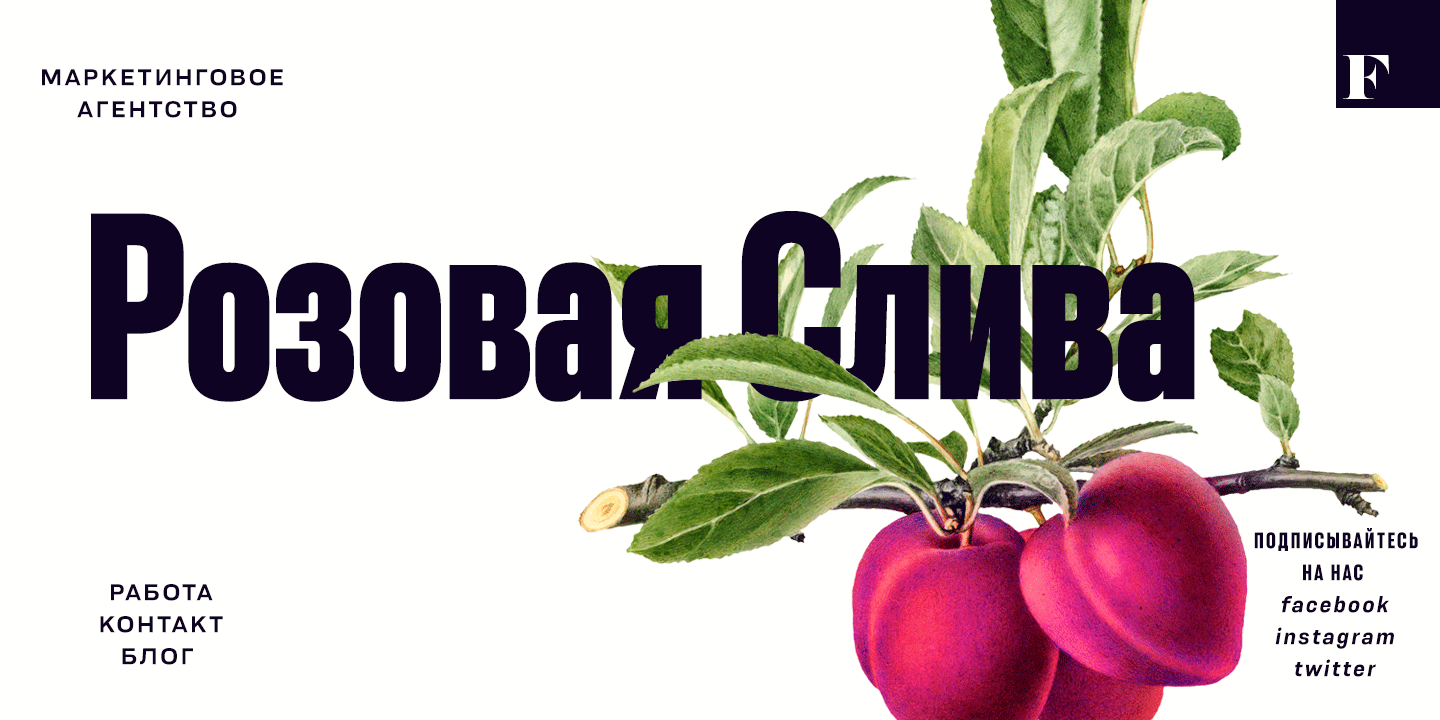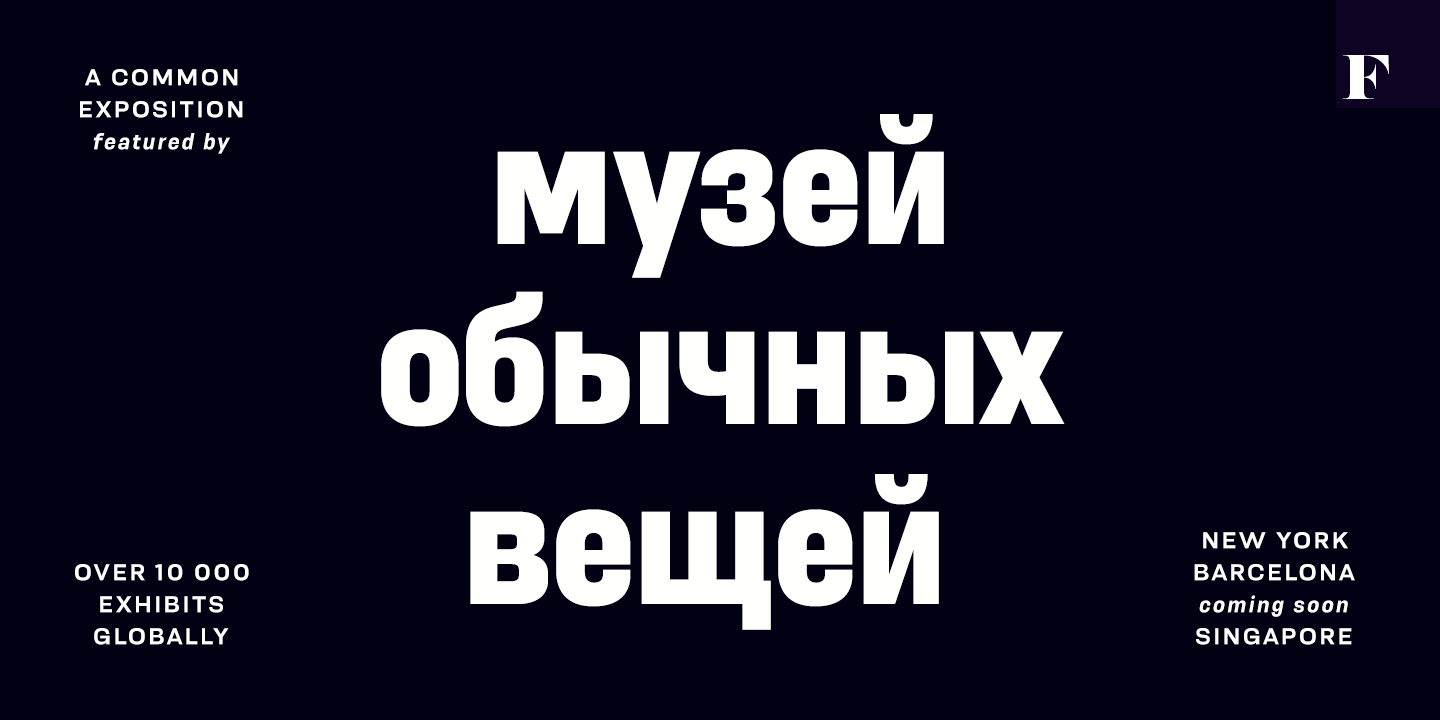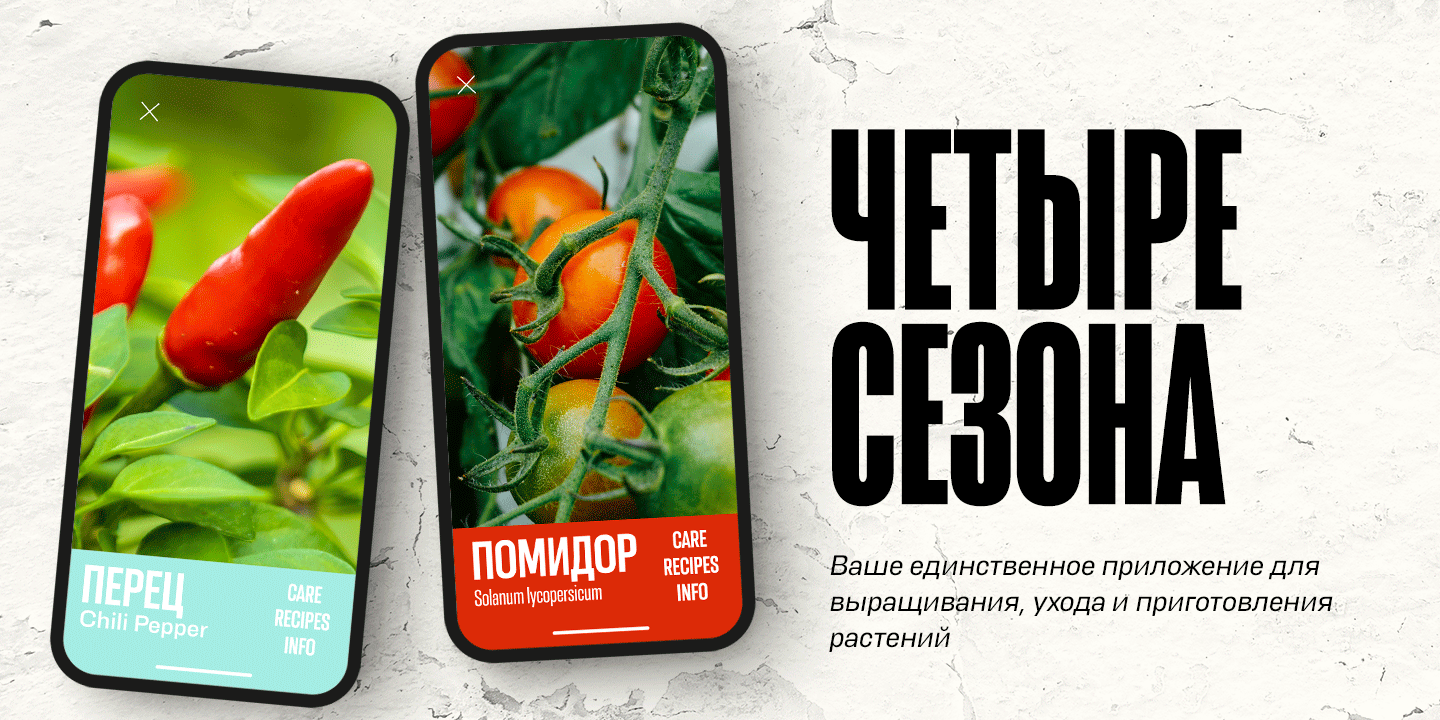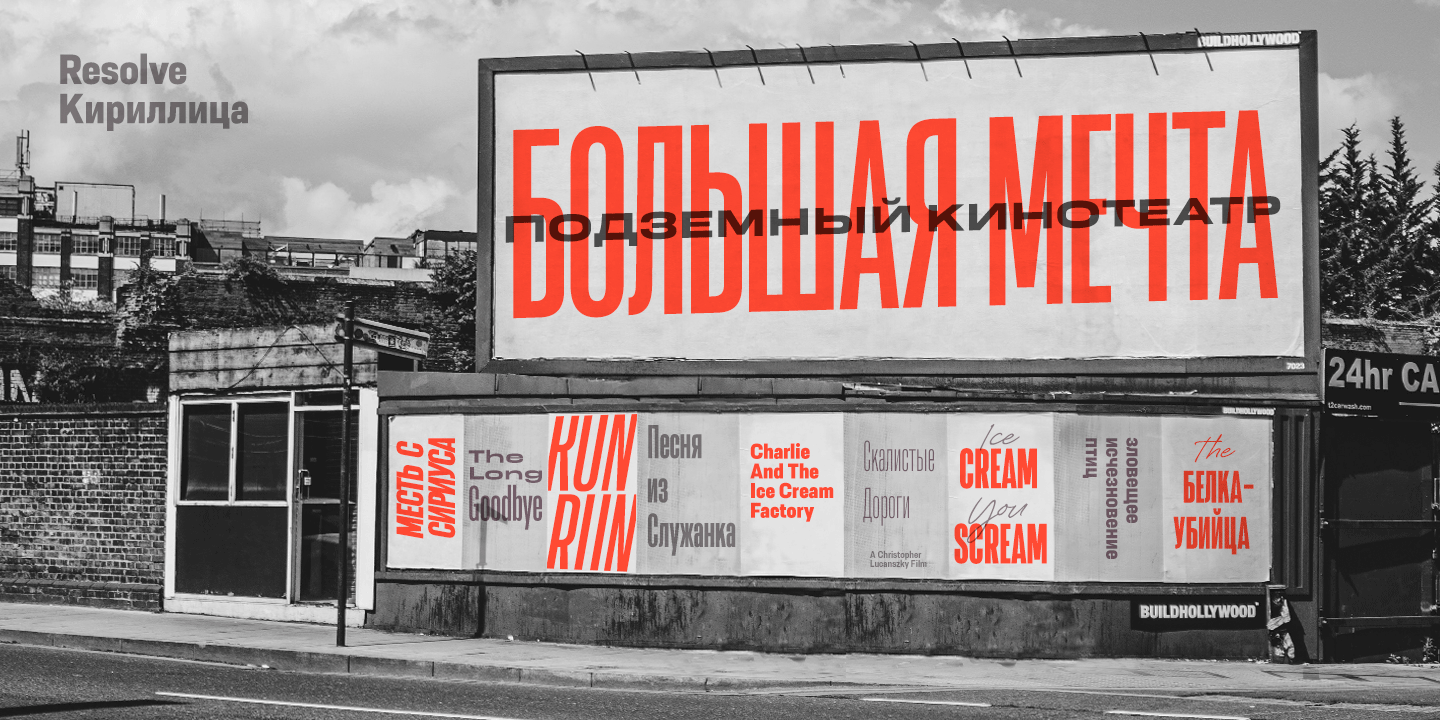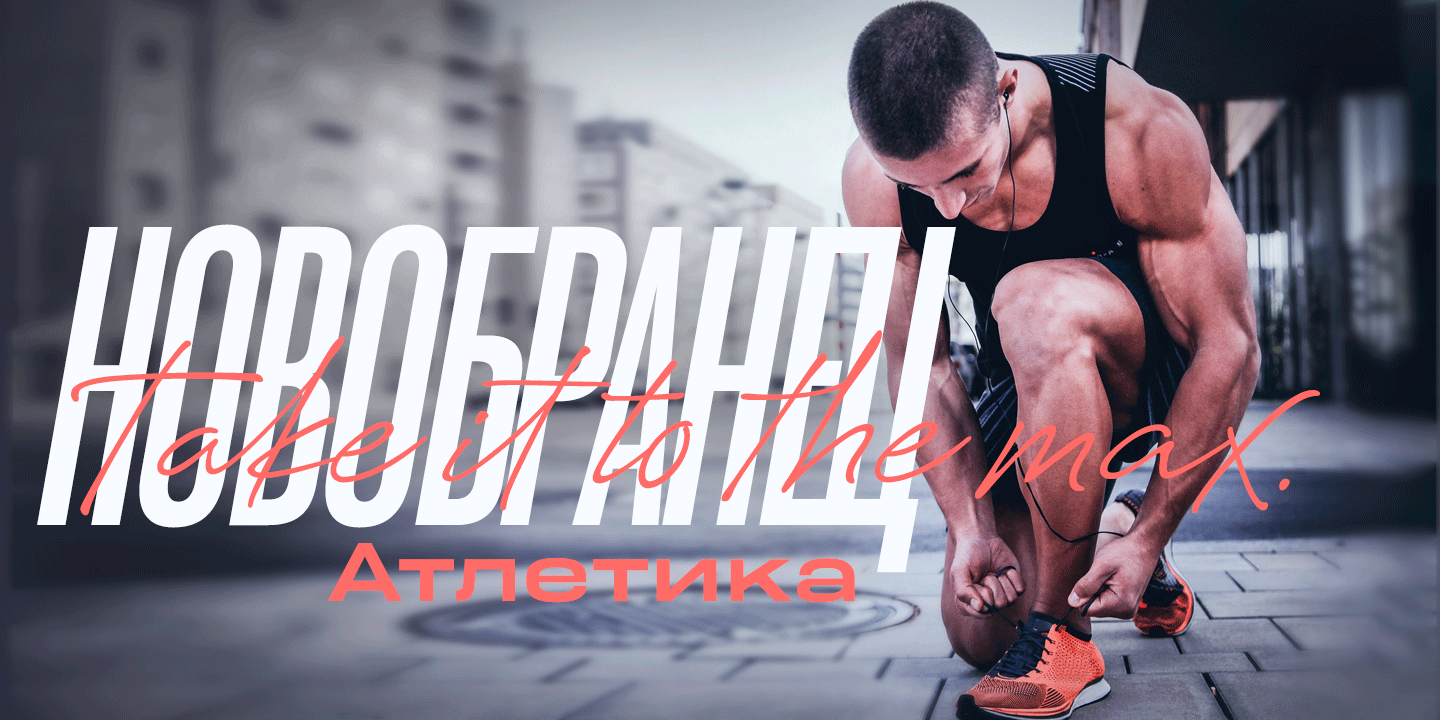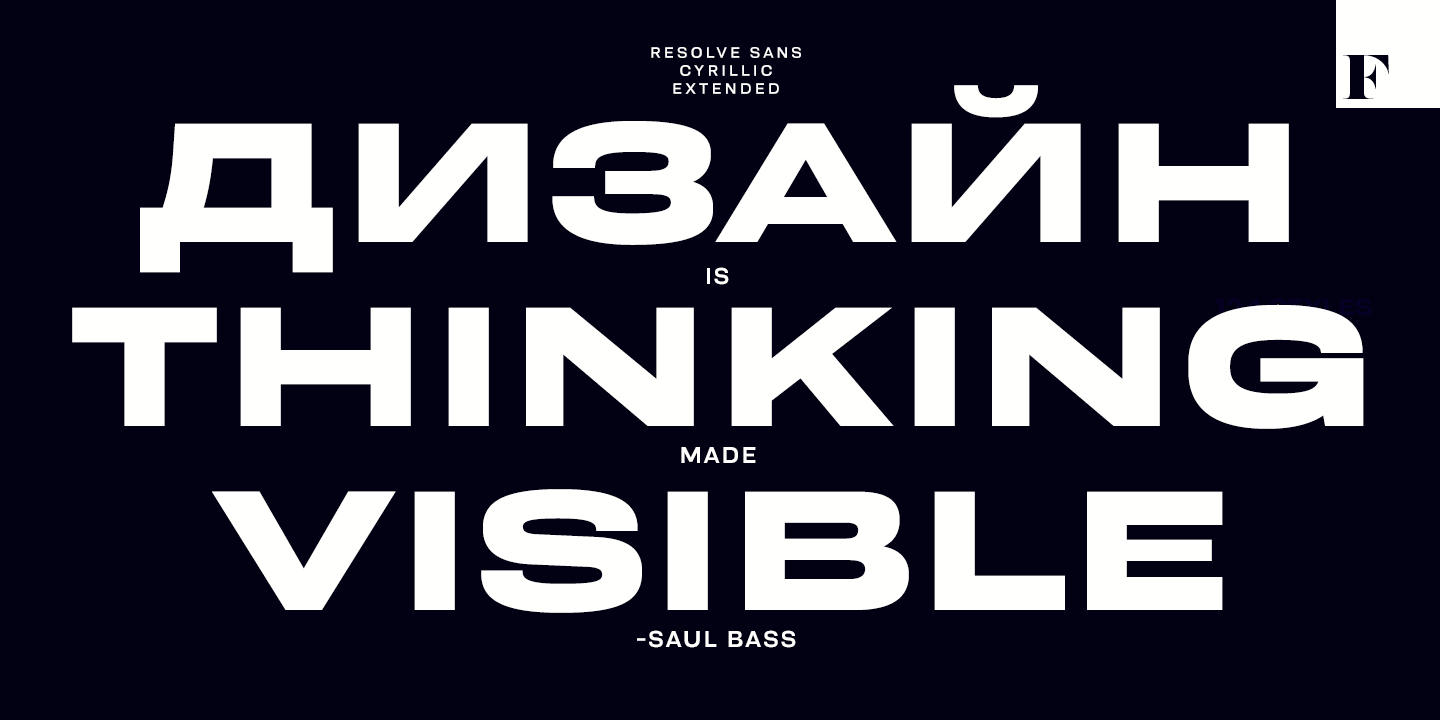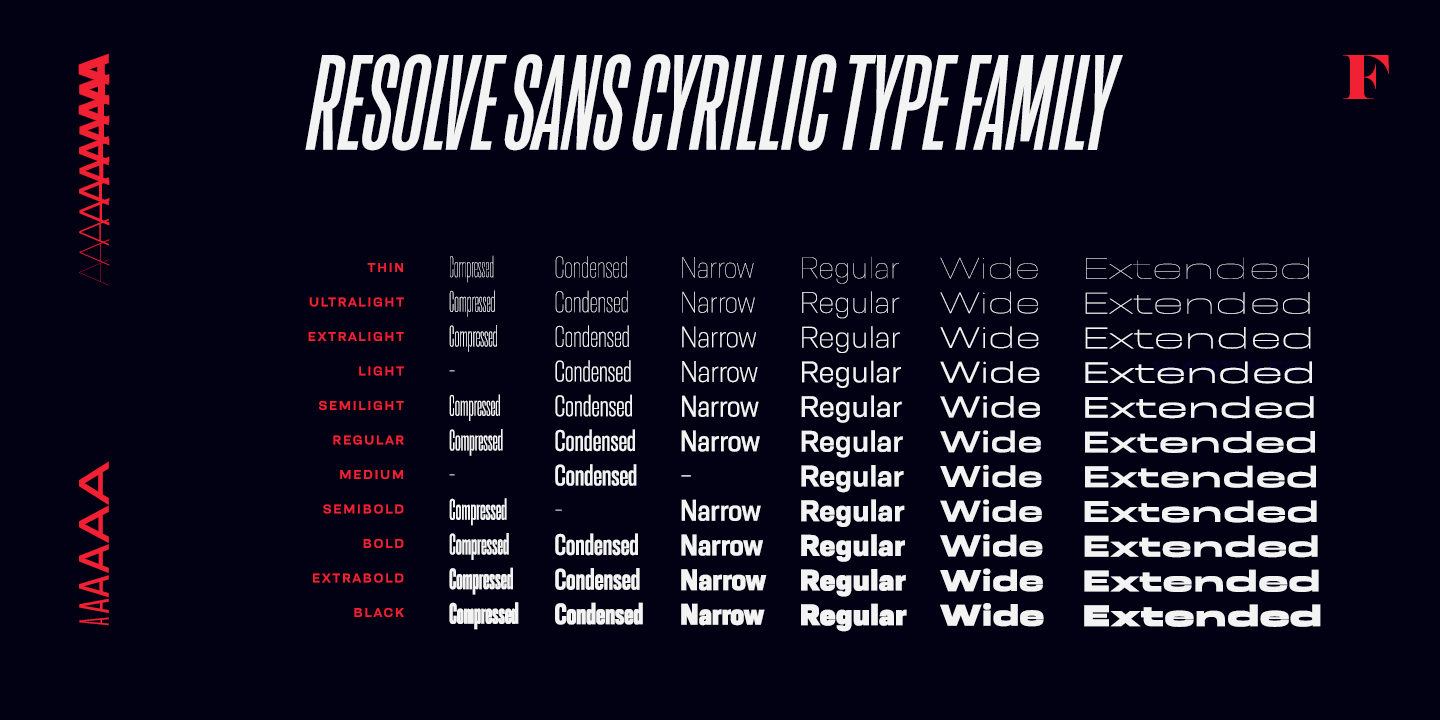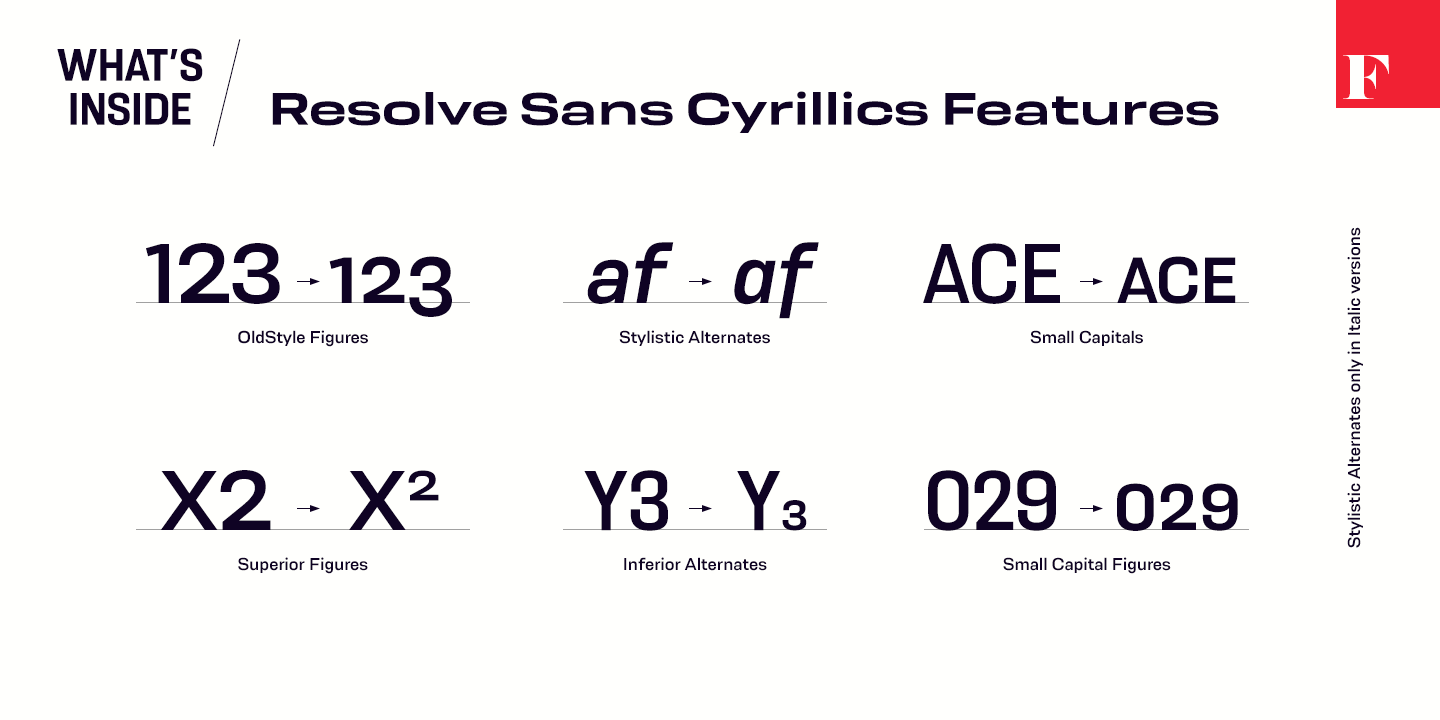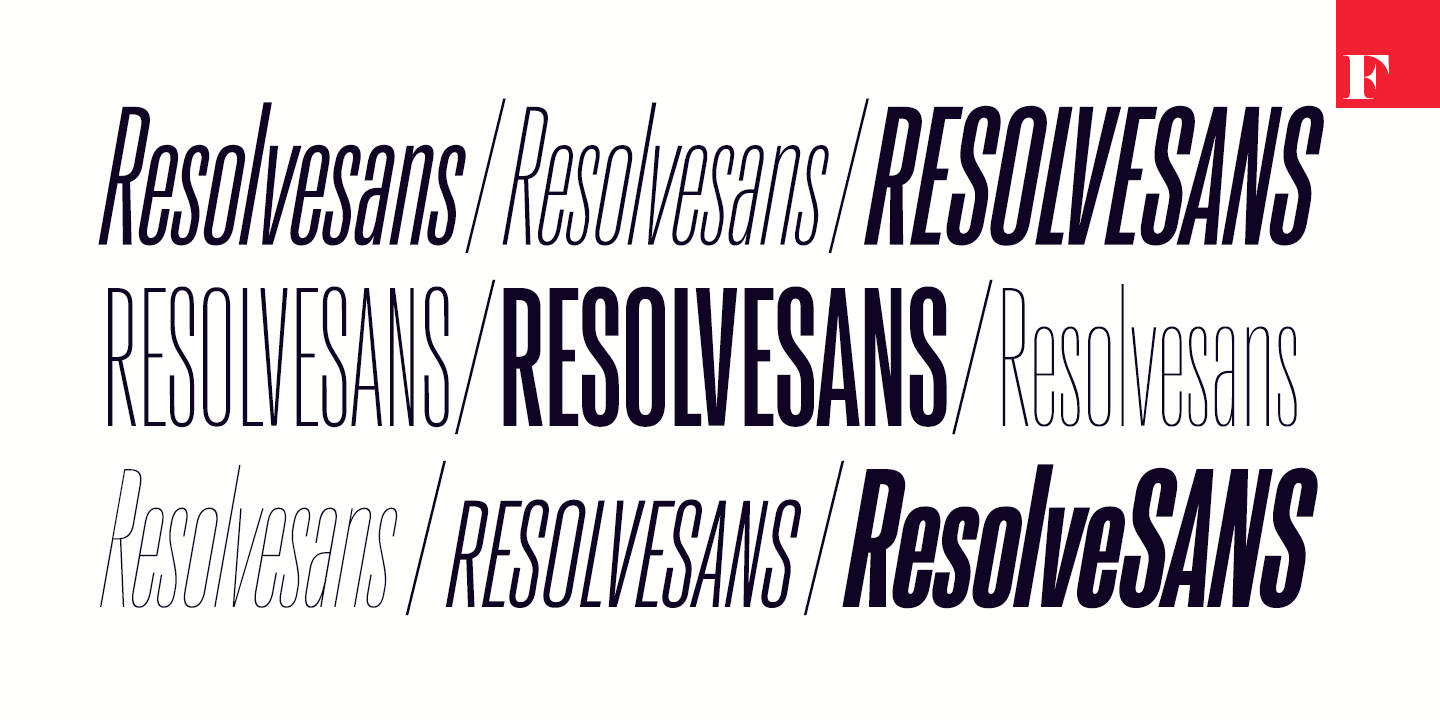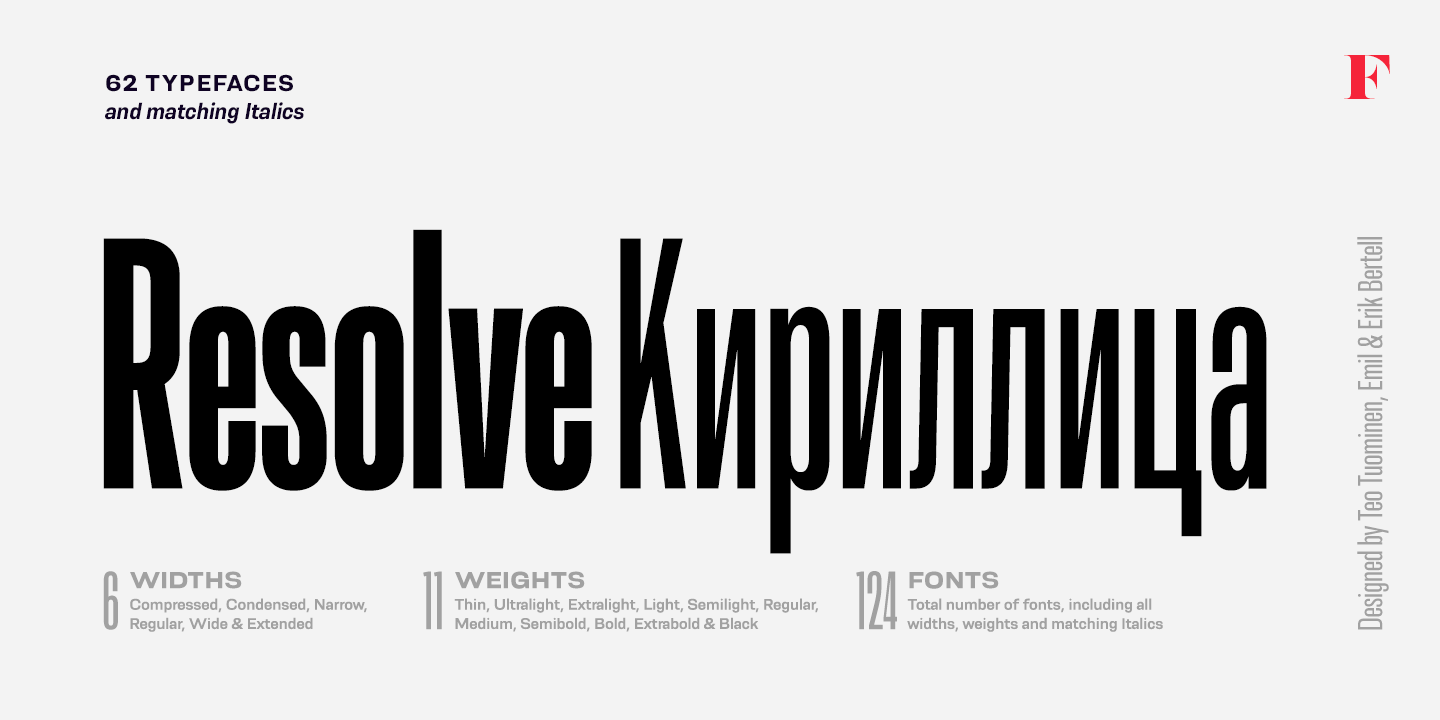
One font family to cover it all. Resolve Sans Cyrillic is an extensive super family of 124 fonts: from compressed to extended, thin to black. Resolve Sans Cyrillic perfectly balances a universally neutral appeal with a distinct level of sophistication.…